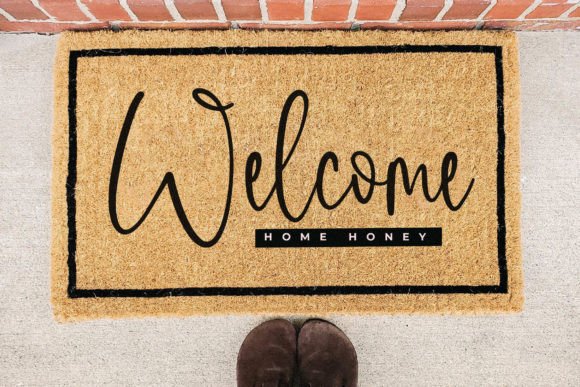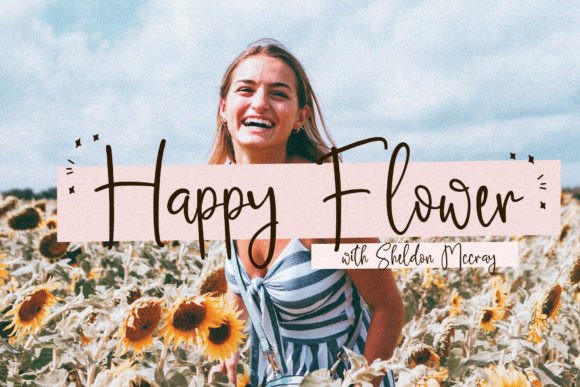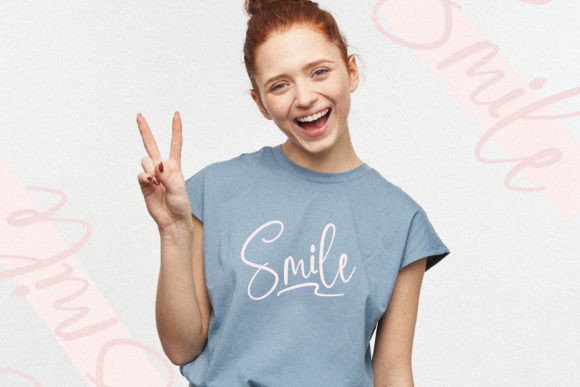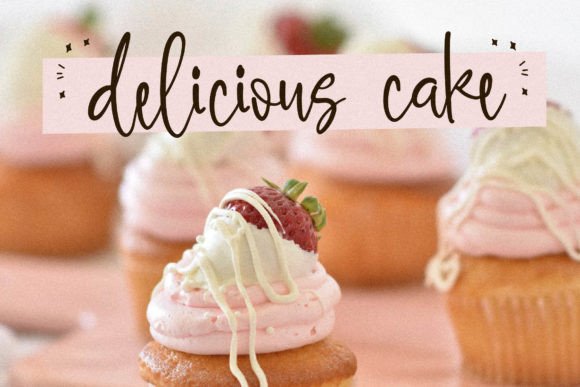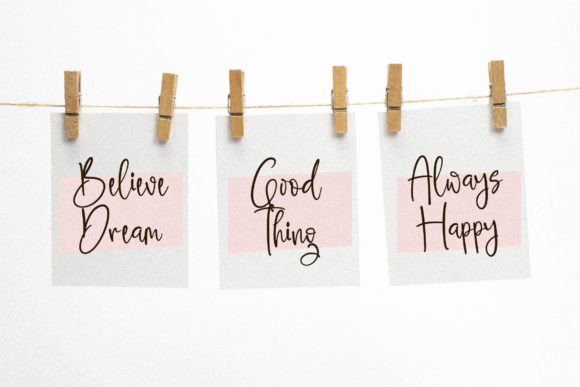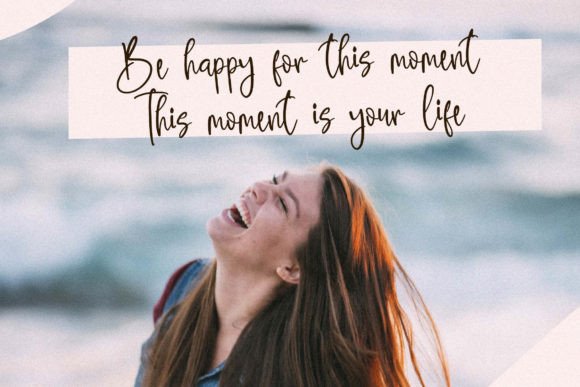
Introduction to Golden Bulldock Font
Golden Bulldock is a flowing handwritten font, described by an elegant touch, perfect for your favorite projects.
Key Features of Golden Bulldock Font
Why Choose Golden Bulldock Font?
Golden Bulldock Font offers exceptional quality and versatility, making it a valuable addition to your design toolkit. Whether you’re creating for personal projects or commercial use, Golden Bulldock Font delivers professional results.